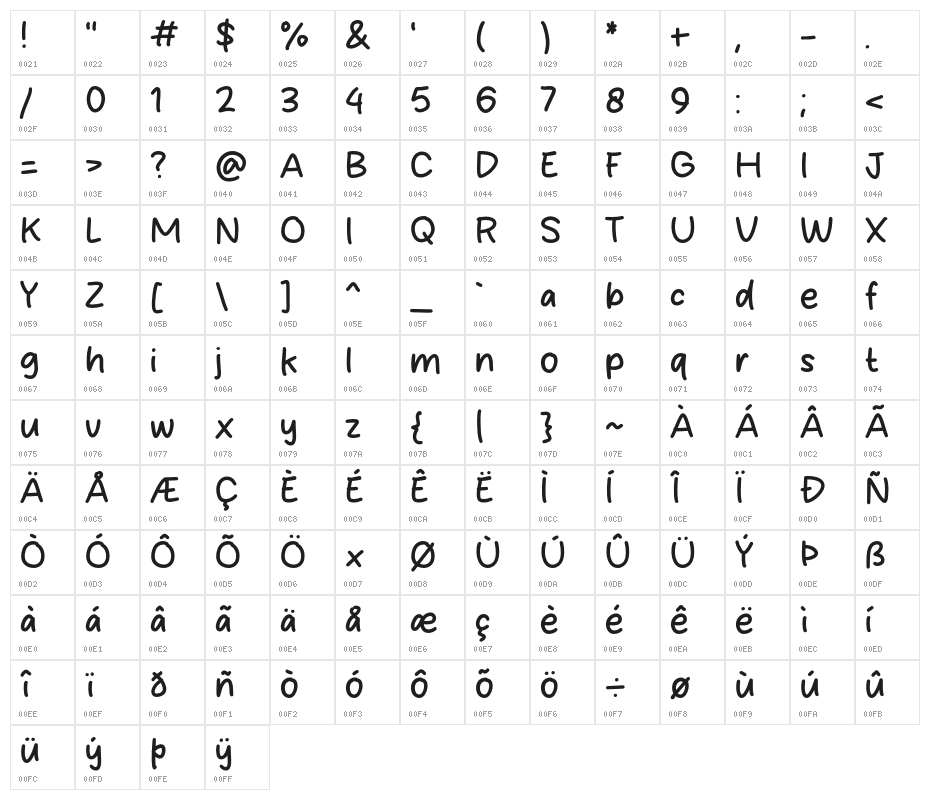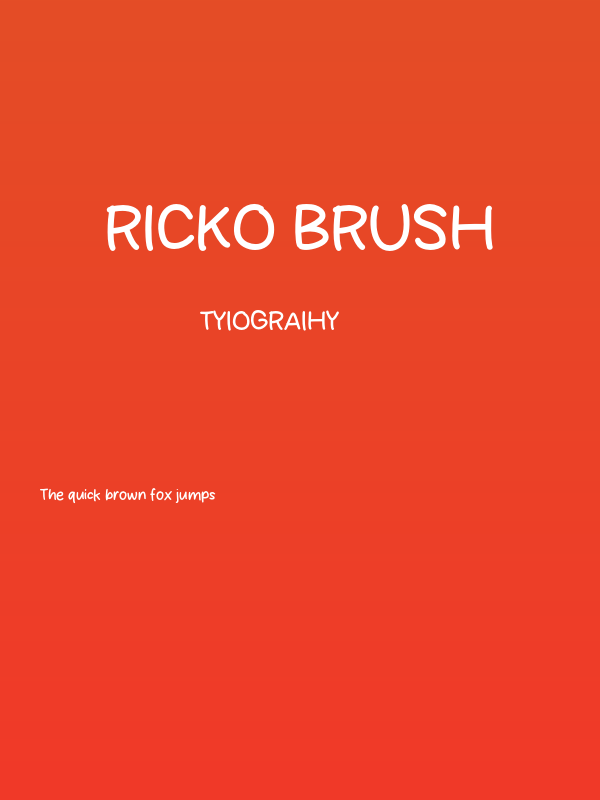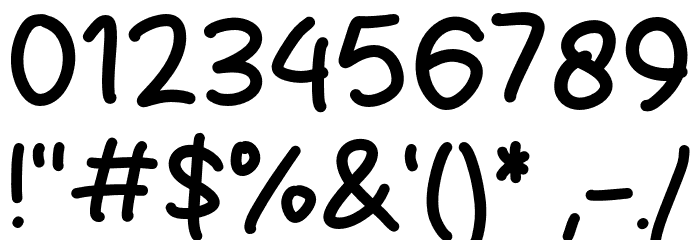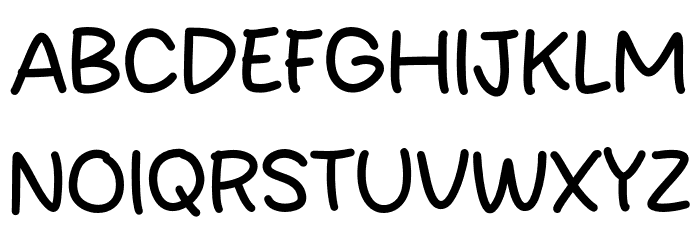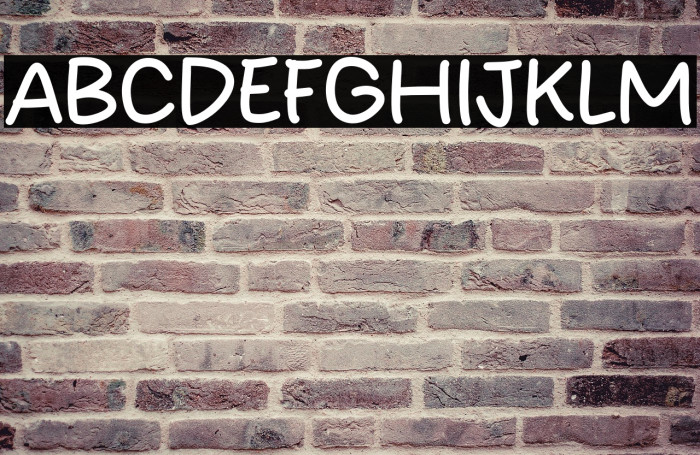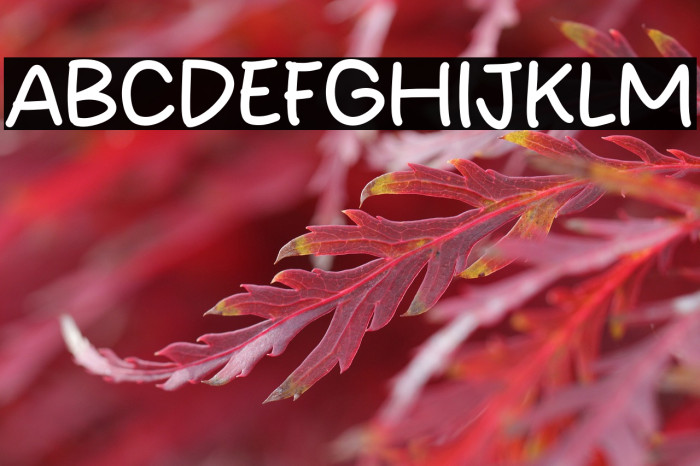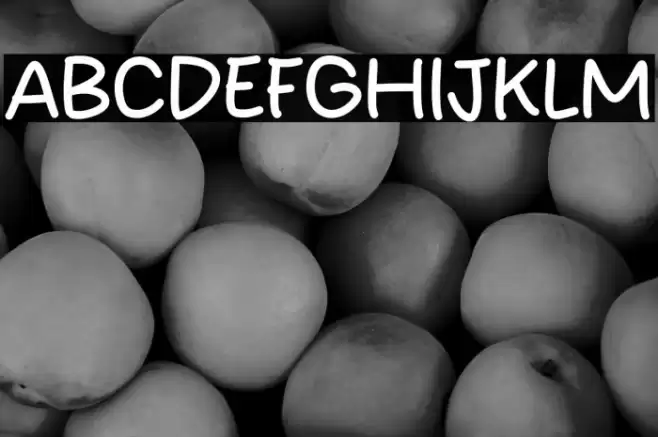
Ricko Brush Font
Ricko Brush Description
A playful, handwritten style font with rounded, casual letterforms and consistent stroke width.
| Overall Style | Casual, Friendly, Playful |
| Use Case | Headlines, Children's materials, Invitations, Logos |